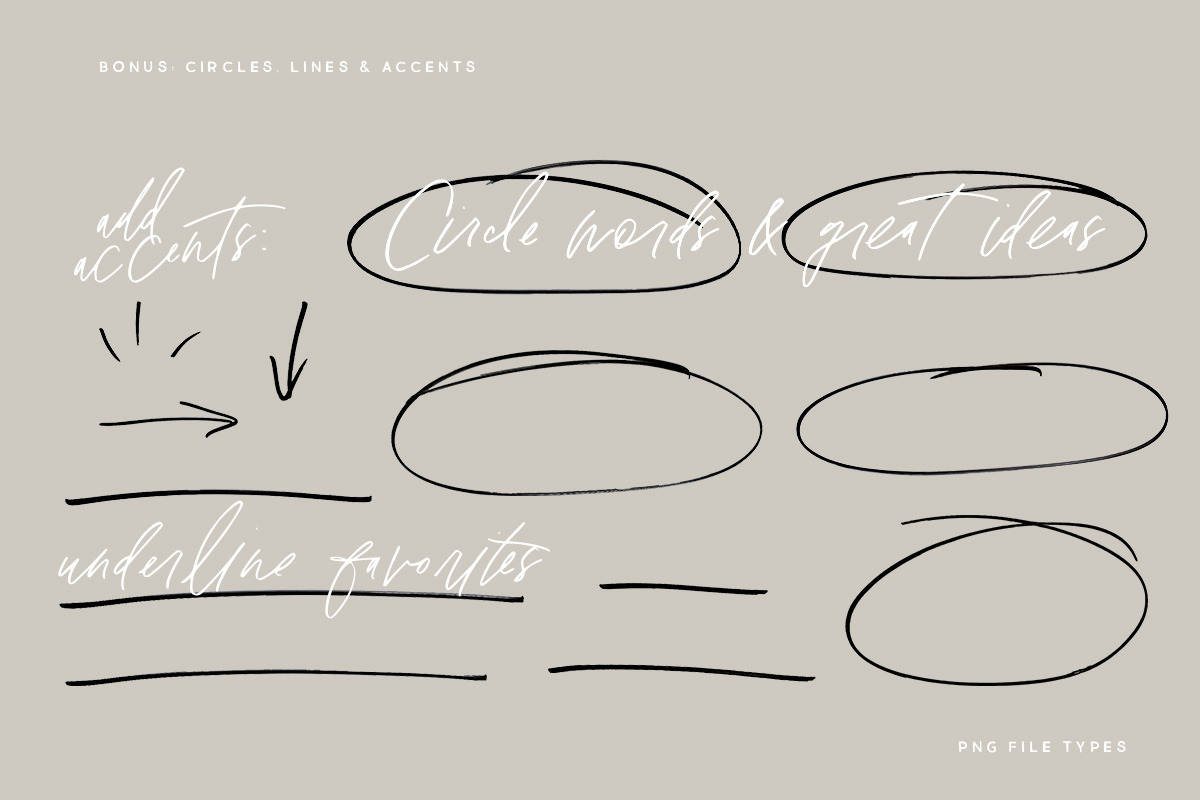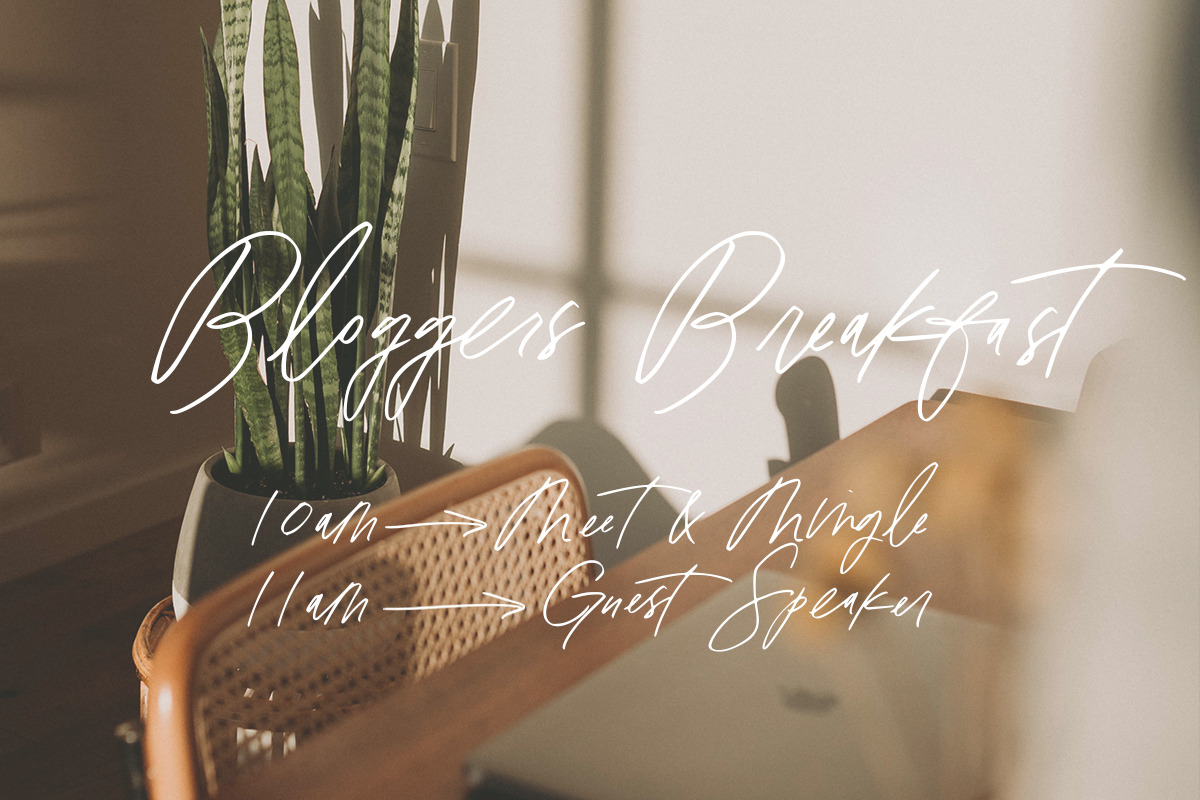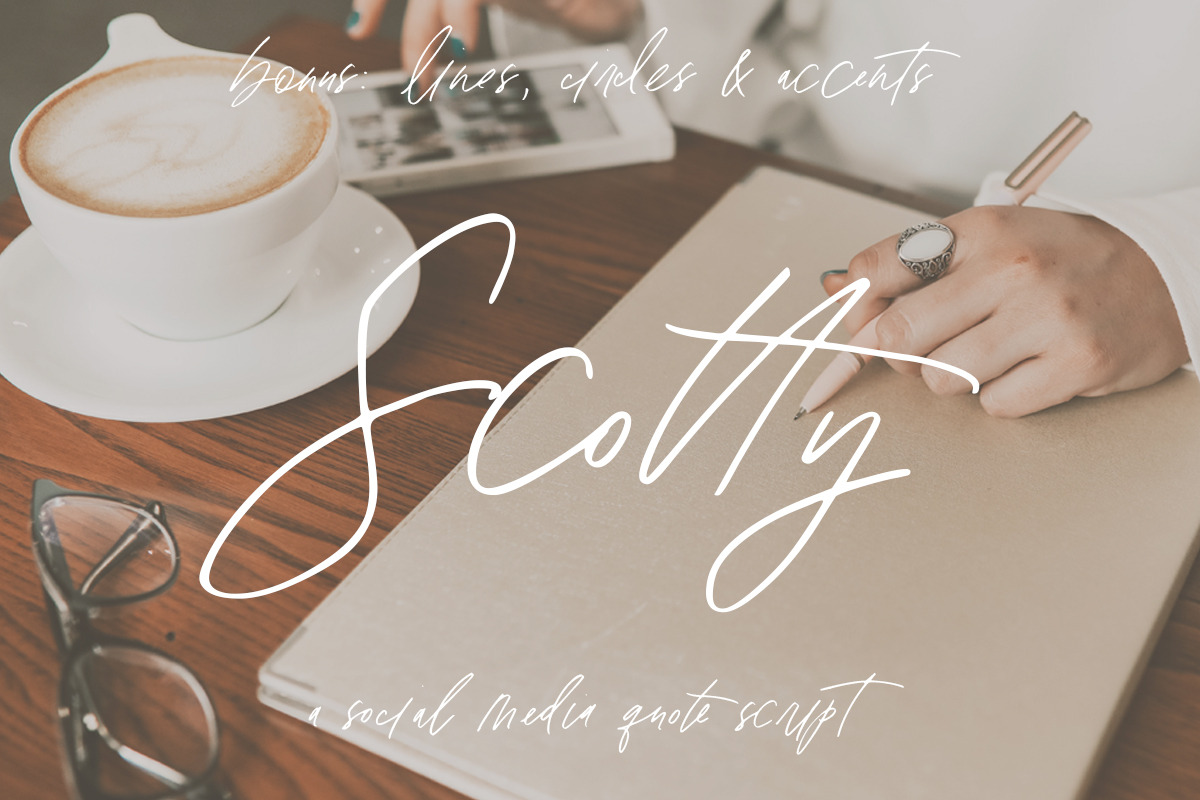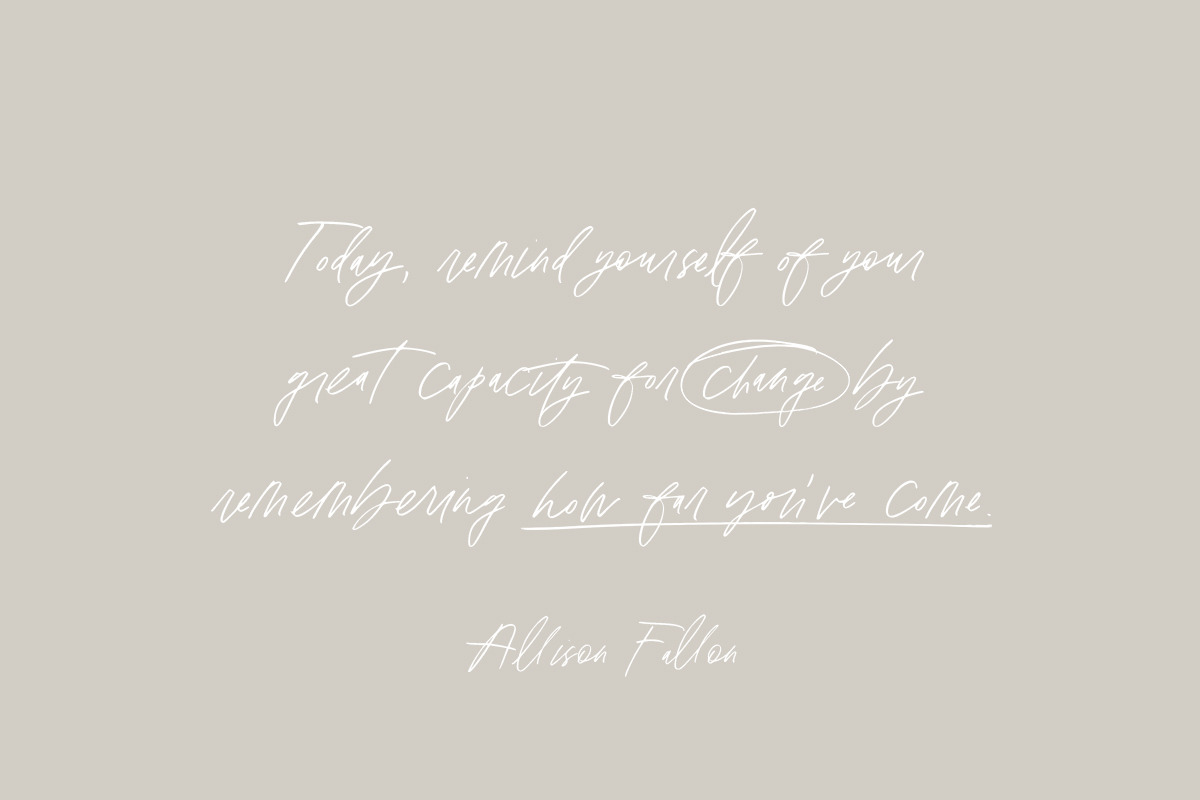
Scotty: a Social Media Quote Script
Need a messy, handlettered look for quotes on Instagram? You know, the kind that looks effortlessly loopy, but still legible? Meet Scotty. The newest marker script. She's handcrafted, with caps and lowercase letters, numbers, basic punctuation, and lots of ligatures. As a bonus, you'll get circles, lines and accents to give your quotes and messages the perfect emphasis. Check out the examples above!
- Upper & Lowercase Letters
- Numbers & Basic Punctuation
- Lots of Ligatures